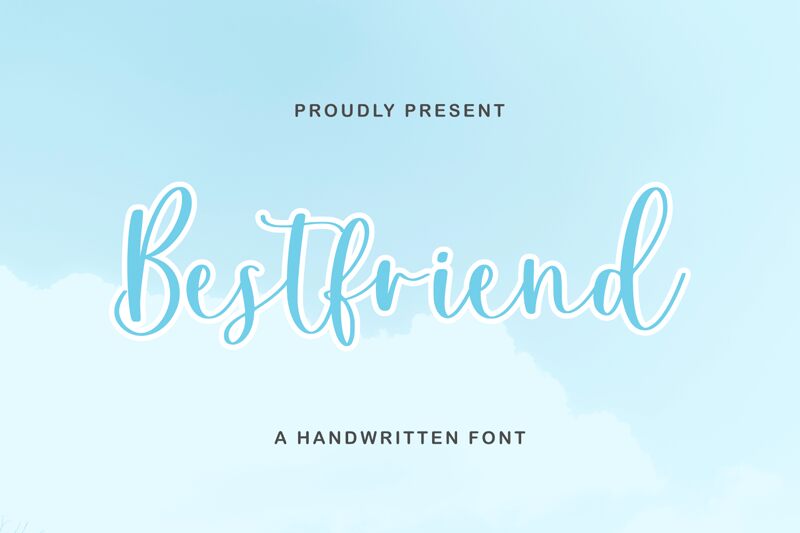
Bestfriend, a creation by designer Makashi, is a handwritten font that exudes charm and personal touch. Its fluid strokes and variable line thickness emulate the nuances of human penmanship, crafting an intimate and inviting aura. The elegant loops and gentle curves lend it a friendly and approachable feel, reminiscent of a note passed between confidants.
This font's aesthetic grace makes it ideal for invitations, greeting cards, and branding projects where a touch of personal warmth is desirable. Bestfriend's casual elegance can also enhance the visual storytelling in children’s books or add character to personalized merchandise. With its handwritten allure, Bestfriend stands out as a font that not only captures attention but also hearts.